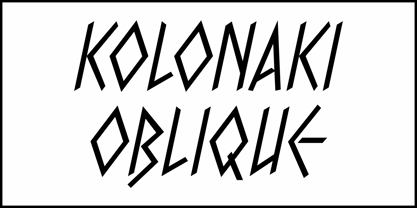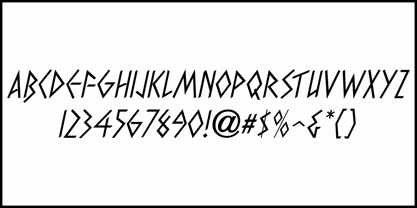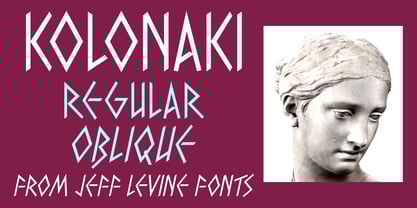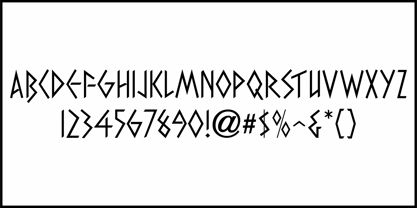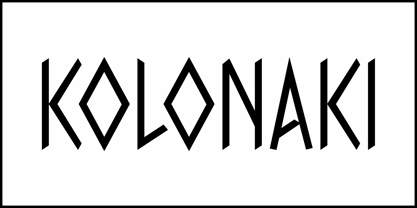
Kolonaki JNL
by Jeff Levine
An ancient Greek-influenced alphabet shown within the pages of the 1939 book "Learning to Letter" by Paul Carlyle and Guy Oring inspired Kolonaki JNL.
This digital revival is available in both regular and oblique versions.
Kolonaki is a neighborhood in Athens, Greece that is considered stylish and upscale. Aside from their high-end shopping and cafes, the area is know for its theaters, museums and other attractions of cultural interest.